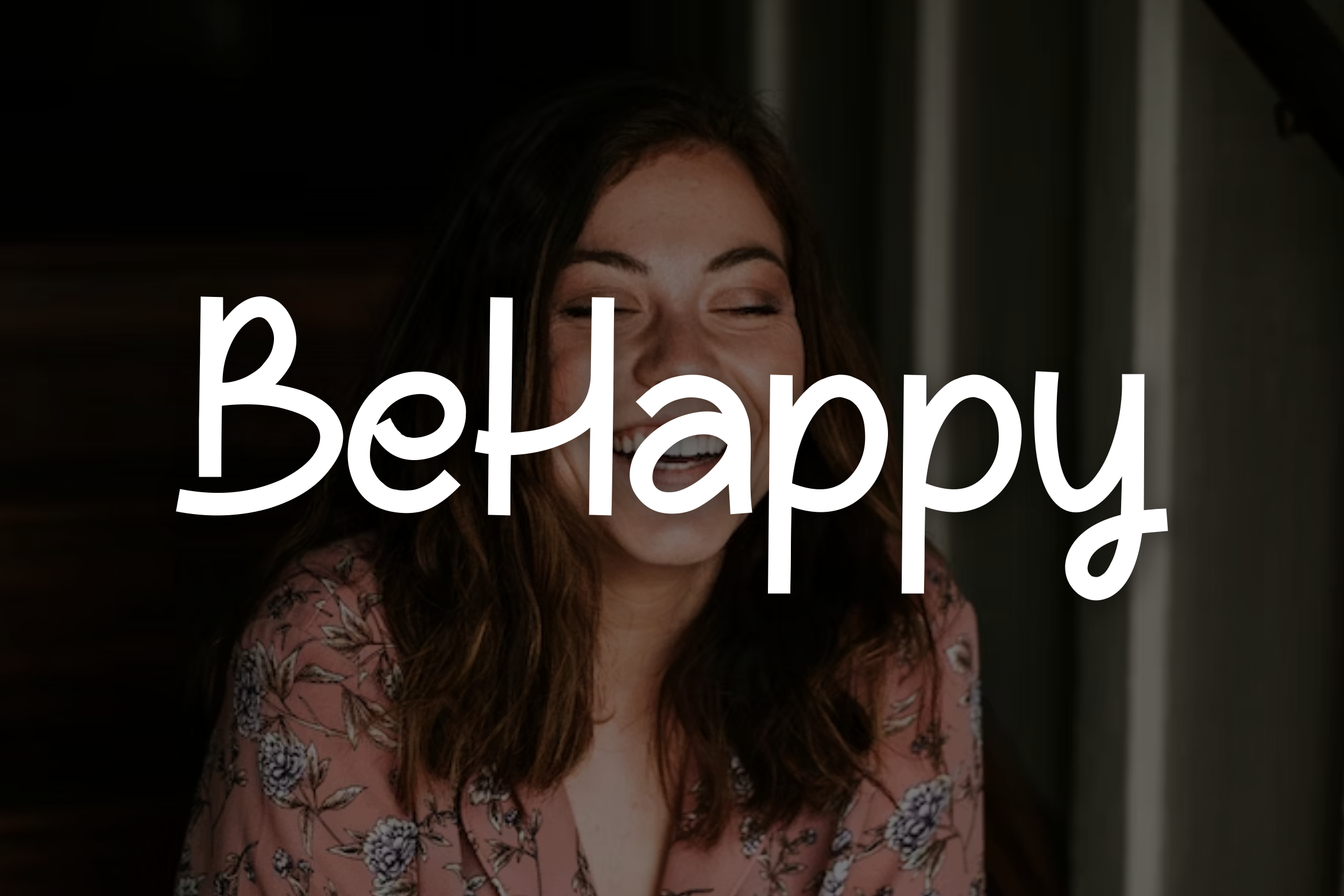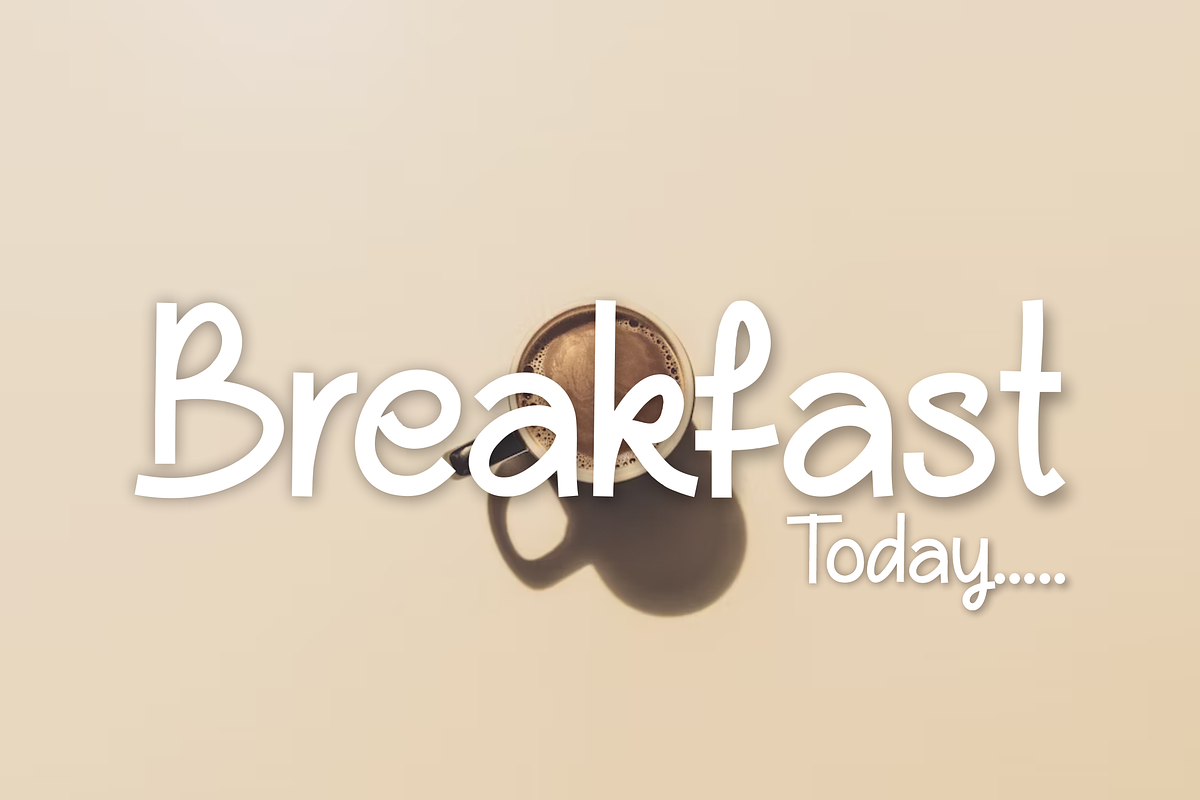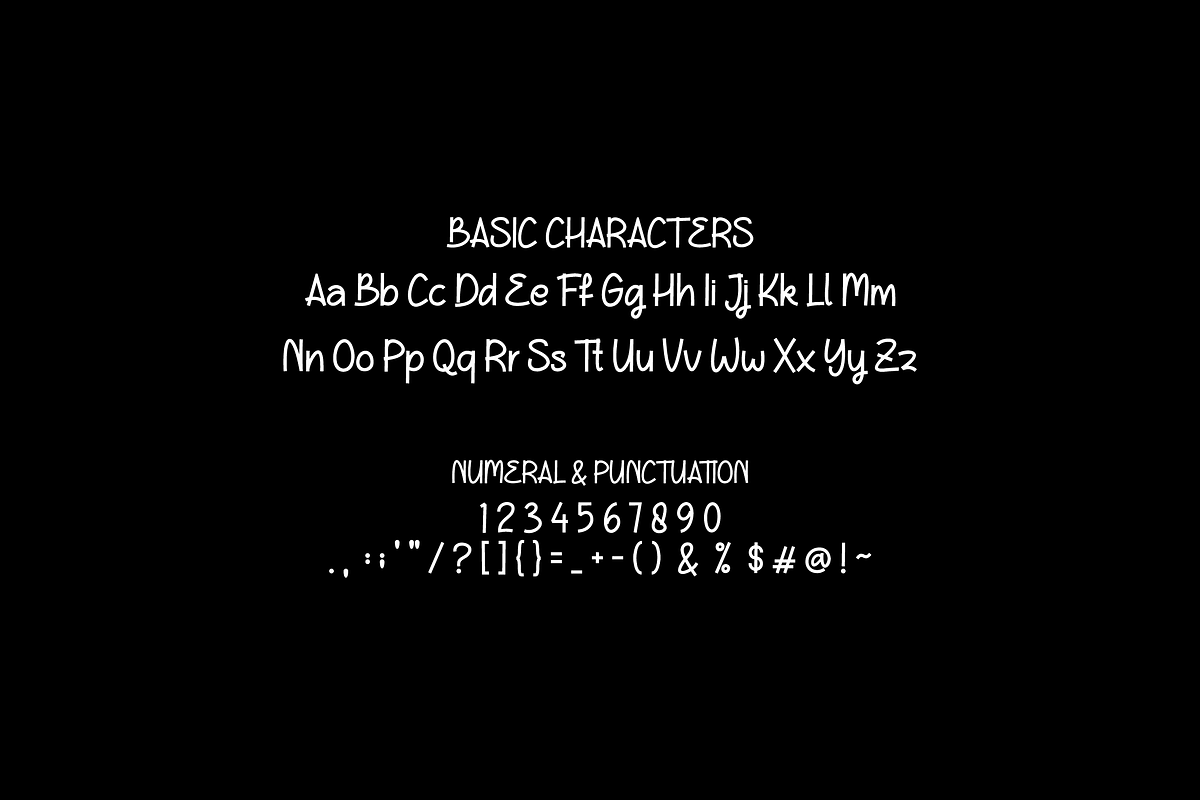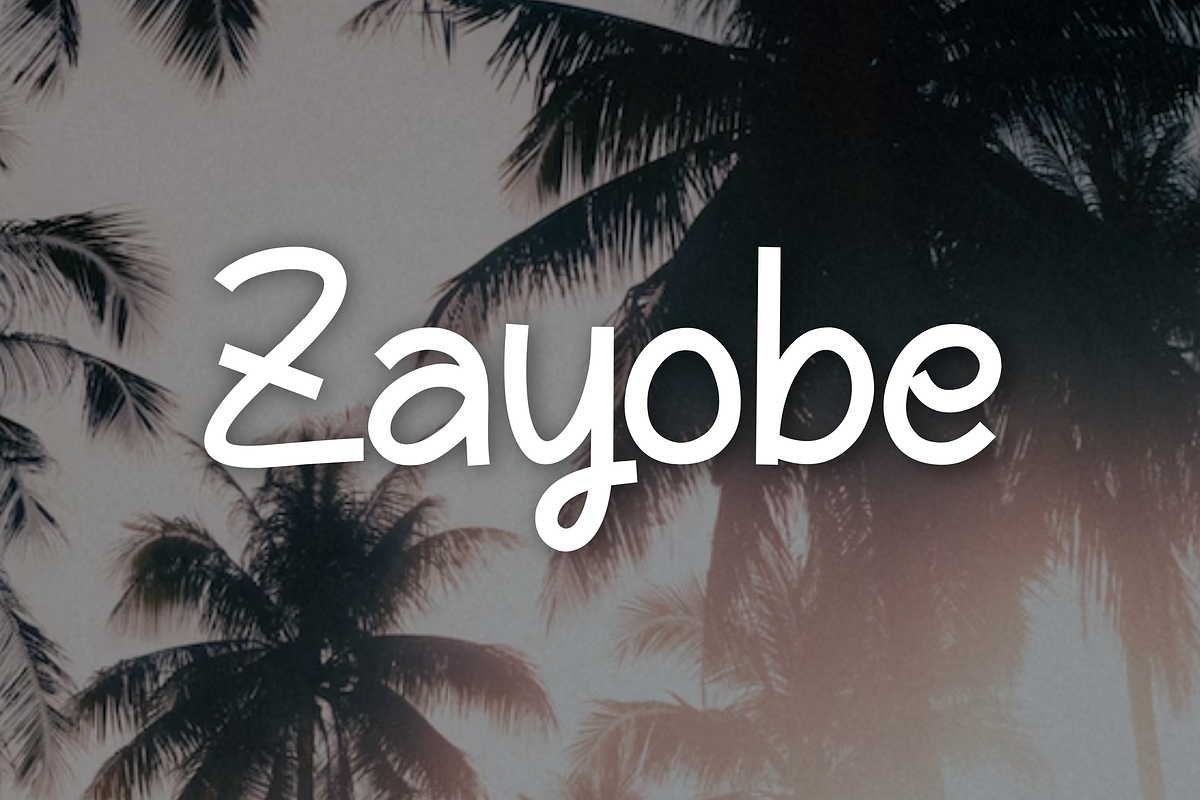
Zayobe font
Font suitable for food, drink, or anything related to it. The font shadow in the preview image is only a sweetener, it is hoped that users can make it like that in their creations, so that it becomes more beautiful and fun.